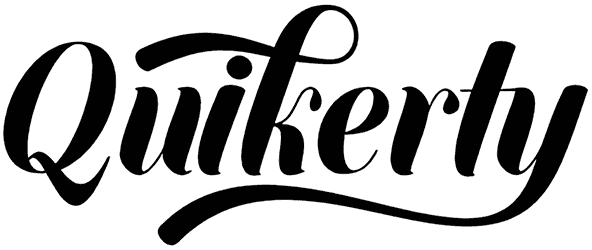
Quikerty Font
Do you need a fun and modern font for your creative projects that isn’t too formal? So Quikerty can become one of your most valuable digital assets. This calligraphy font has unique lines with a playful aesthetic that makes it a sweet and versatile font.
So it doesn’t matter whether you want to get a tattoo or look for a good font to design your wedding card; in any case, Quikerty will create a pleasant feeling in your viewer.
Quikerty is an exquisitely handwritten font, expertly designed to be a true favorite. It maintains a classy calligraphic influence while feeling contemporary and fresh. Fall in love with it and take your projects to the highest level! This font is PUA coded which means you can access all glyphs with ease! It features varied baselines, smooth lines, gorgeous glyphs and stunning alternatives.